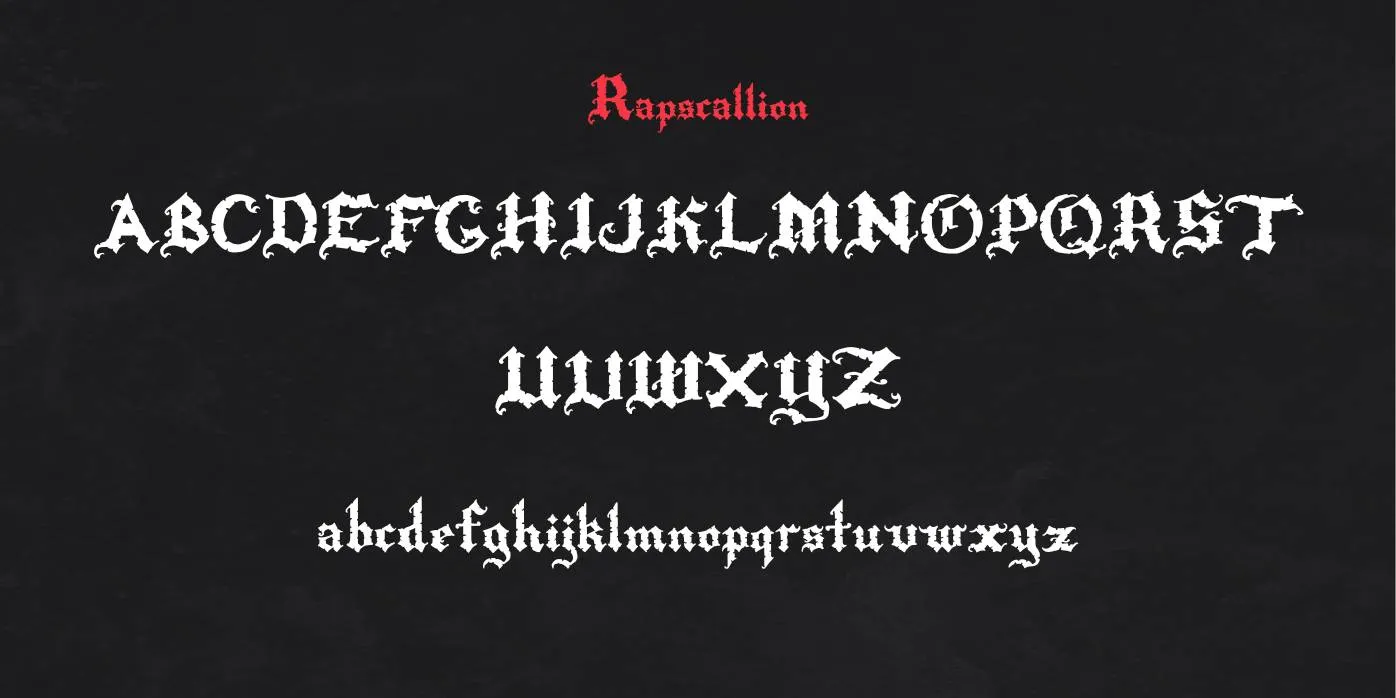
Rapscallion Font
Rapscallion Font was designed by Ryan Splint. It is a Pirate-style font inspired by Melbourne. An Australian folk punk band.  It contains 79 characters, 75 glyphs, and 1000 units per Em.
Online generator tools can be used for changing simple text into stylish looks. It can also be paired with other fonts to give a more attractive look like prince valiant font. It can be downloaded and used on many devices such as PC/Mac and Linux etc.     Usage  It is a very elegant font with a gothic modern style. You can be used for making so many projects.
It can be used for making logos of different brands. This stunning font has characters, symbols, numbers, punctuations, small letters, capital letters, and special characters. It is also a good choice for making pamphlets on different projects. To make official cards you can also use this font design.
FAQs! What type of Rapscallion Font? It is a modern gothic font with lots of features and an attractive bold look. This fon can be used for various projects.
It can be used for small and large types of projects. What is Rapscallion Font used for? It is a very interesting font and can be used for making many projects like logos designs of movies or video games, for large and small text, and much more. Is Rapscallion Font a script font?